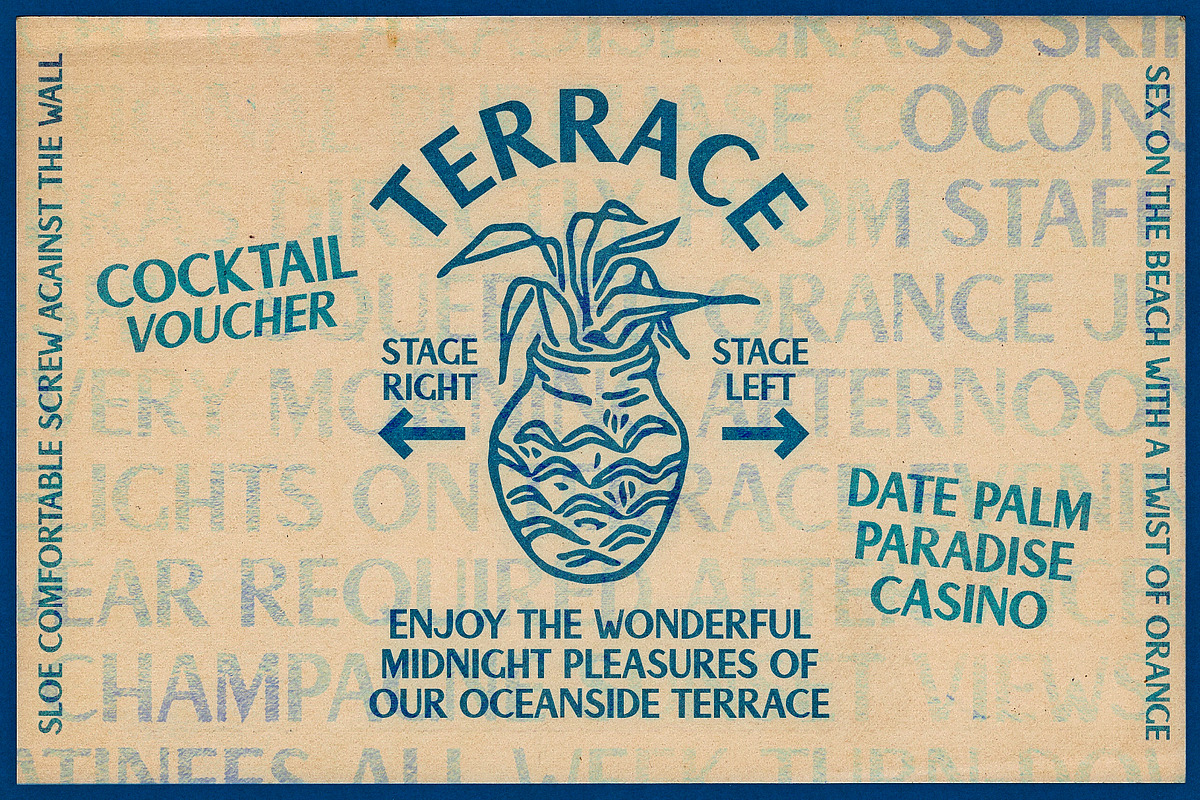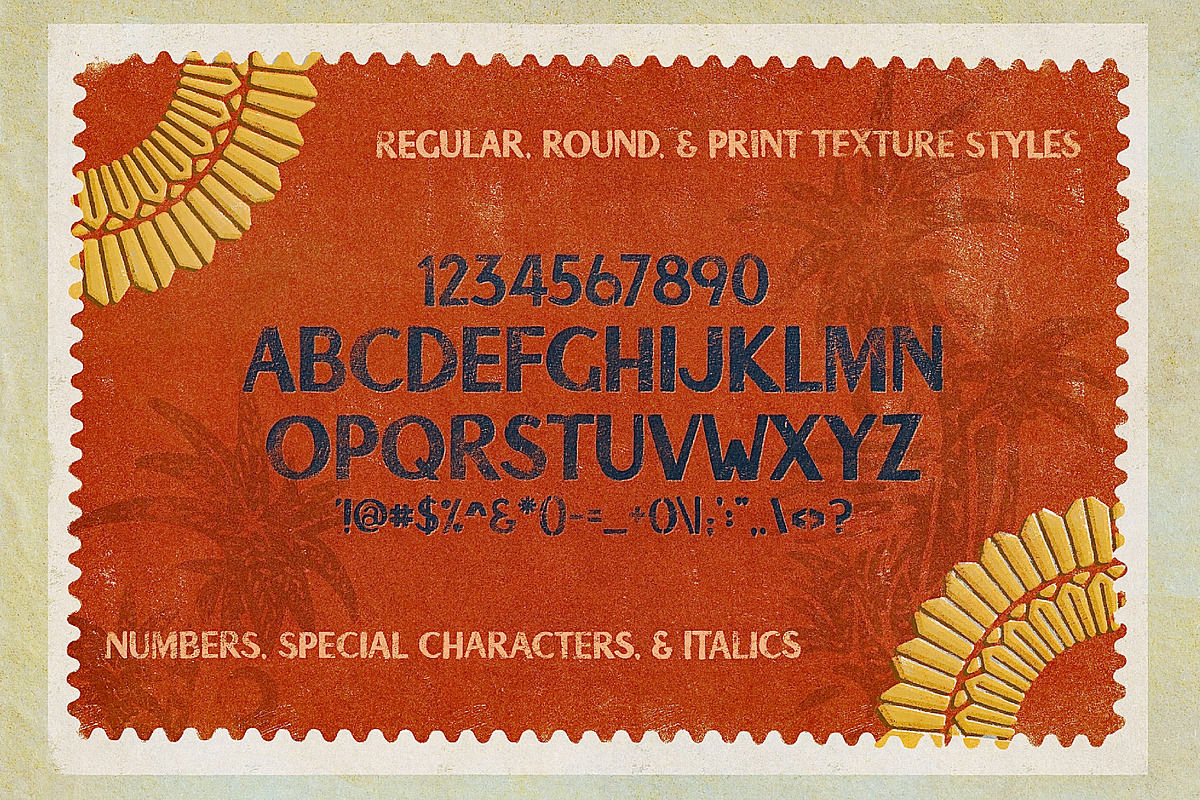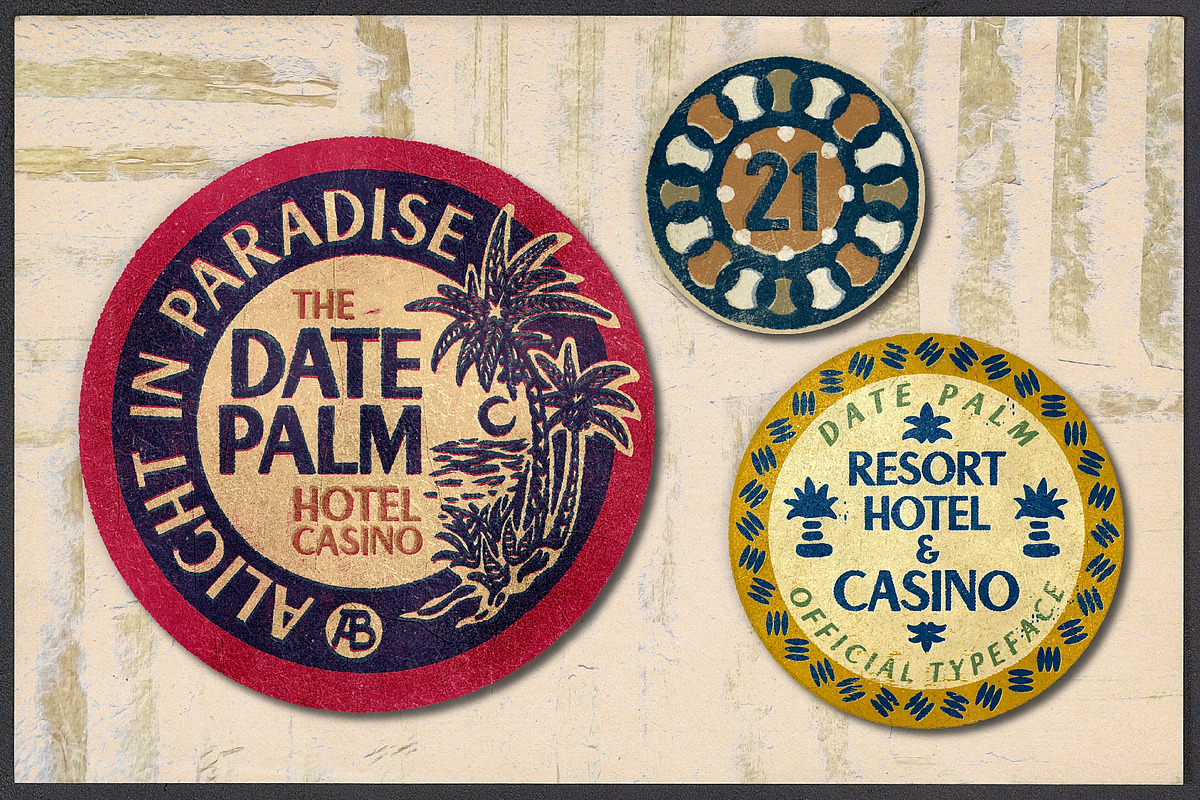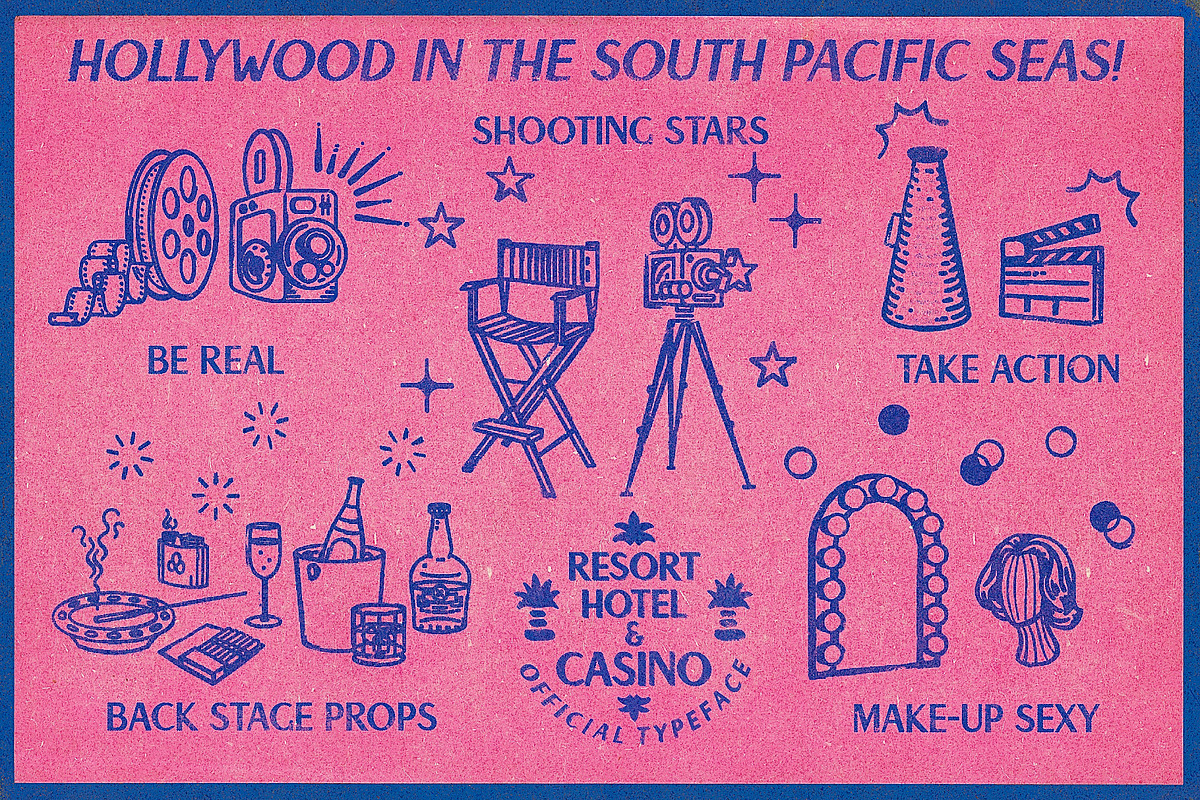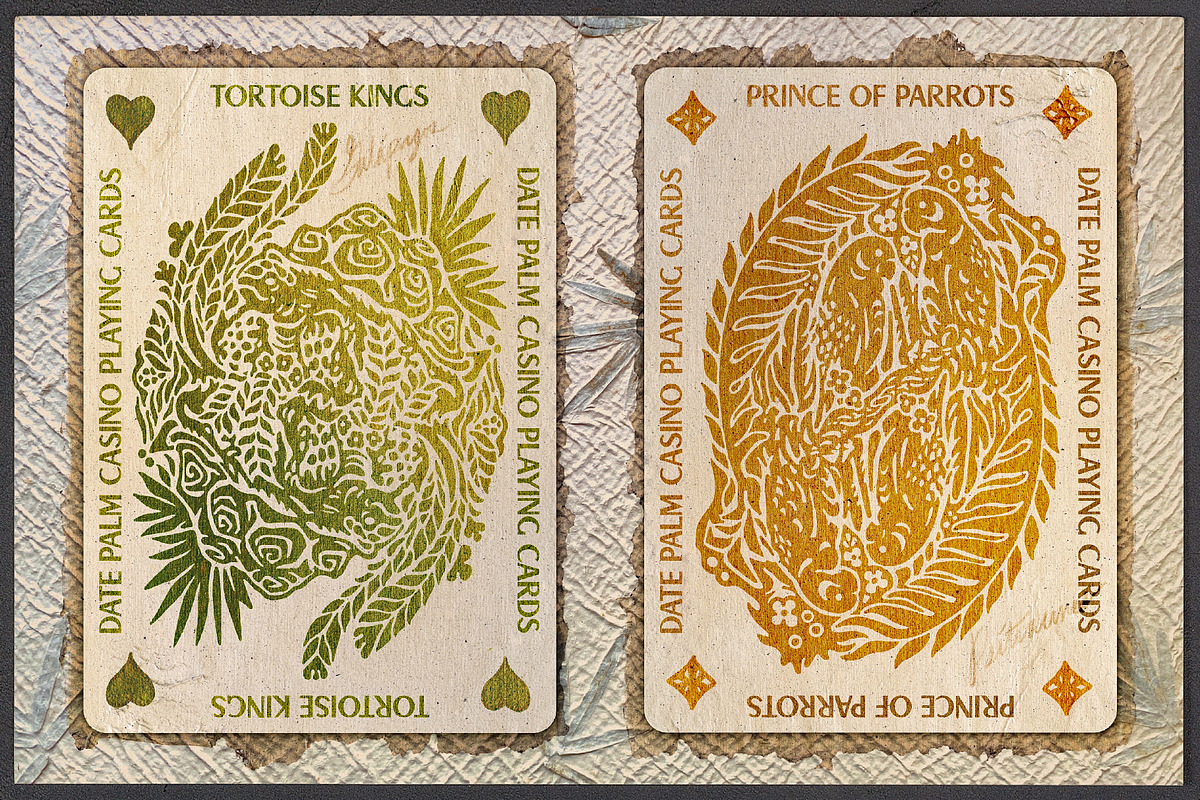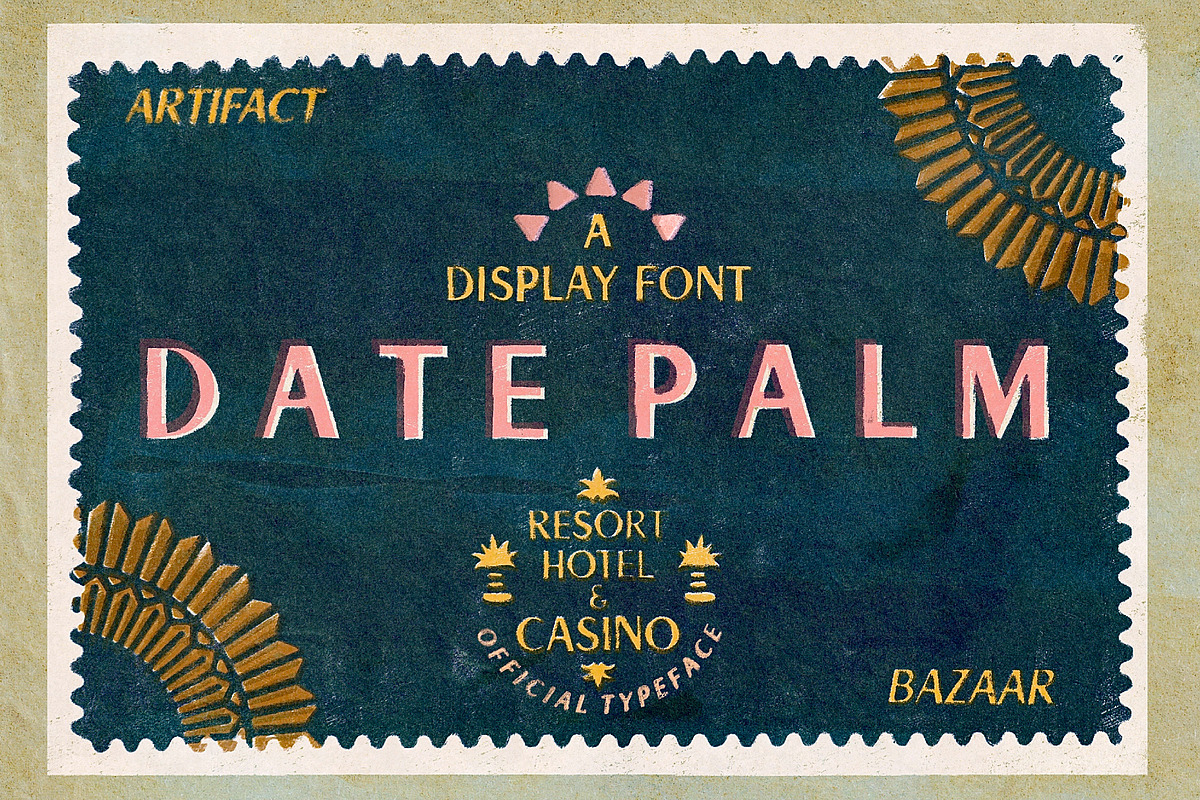
Datepalm | Tropical Stamp Sans
A Season 1 Font
Alight in paradise. Vintage postcards from tropical destinations, matchbooks from cocktail lounges and tiki bars, liquor labels from the casino concierge - take your designs on an exotic trip with "Datepalm."
Season 1
Artisan Made
All numbers, punctuation, and special characters
Rough vintage versions
Round
Ink Bleed Texture
Regular (Italic)
Round (Italic)
Ink Bleed Texture (Italic)